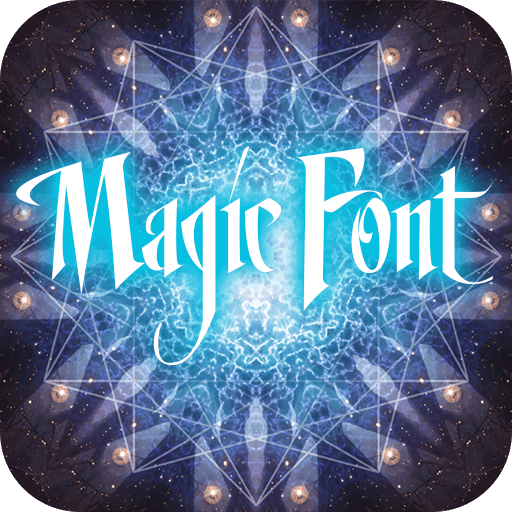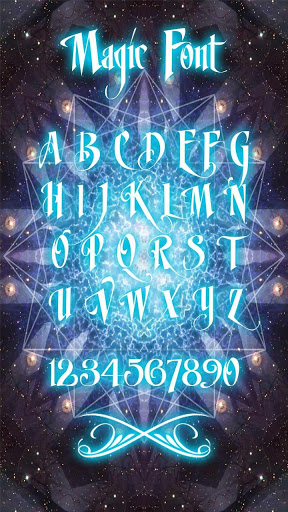
Magic Font for FlipFont , Cool Fonts Text Free
Please enjoy the pack of Fonts for Android FlipFonts to provide you the ability to change your device’s typeface for free. Using the FlipFont font changer program installed on your Samsung Galaxy. Please browse through our FlipFont packs and our bundle font explorer is prompted. You can find the amazing and perfect font style which fits your taste well. Change your entire phone font into Magic. Come and experience the customized font for you. The feature of Magic is compatible ability. It’s time to be the decider of your own phone 👌😉. And you can search other fonts like Magic through Hifont app.